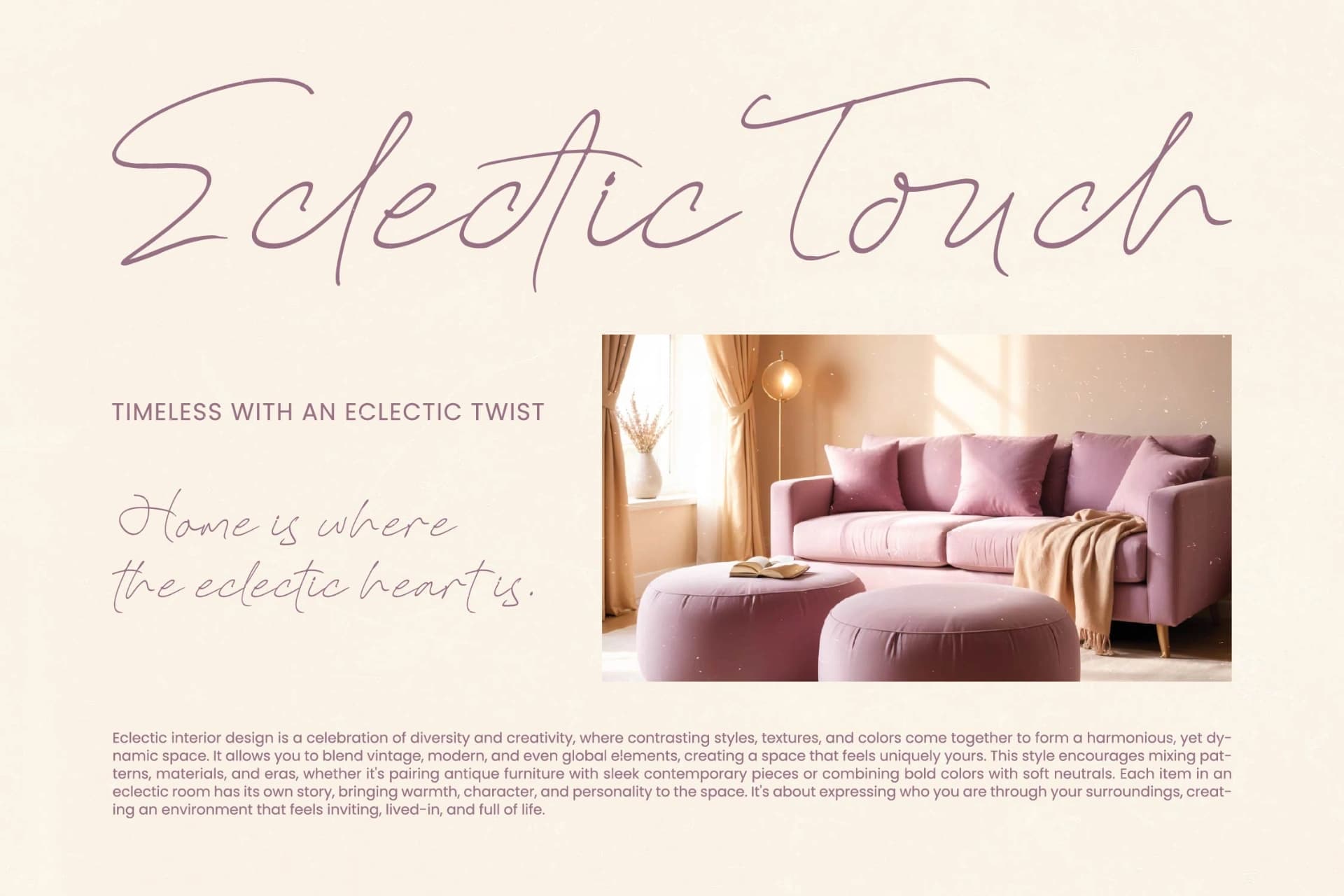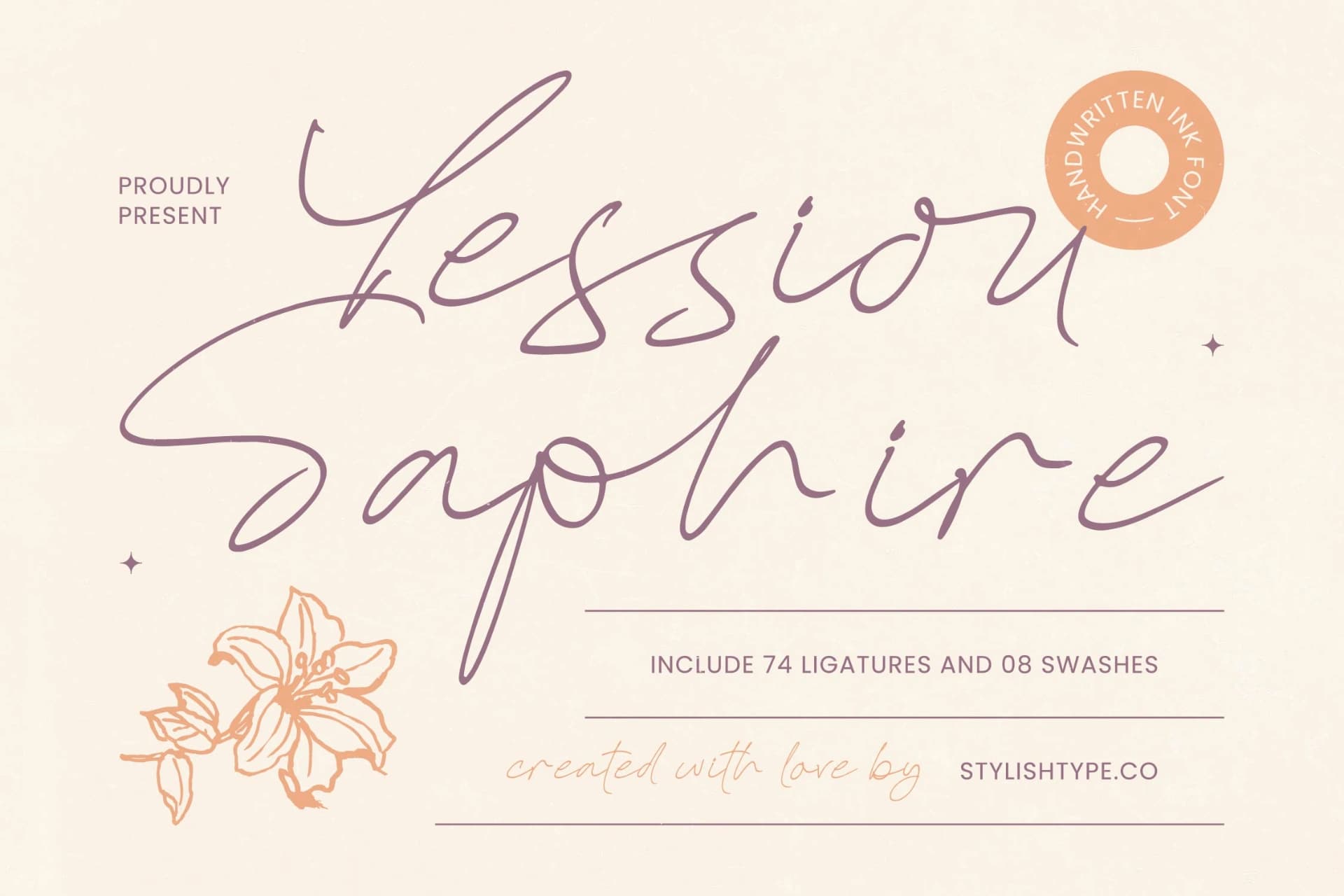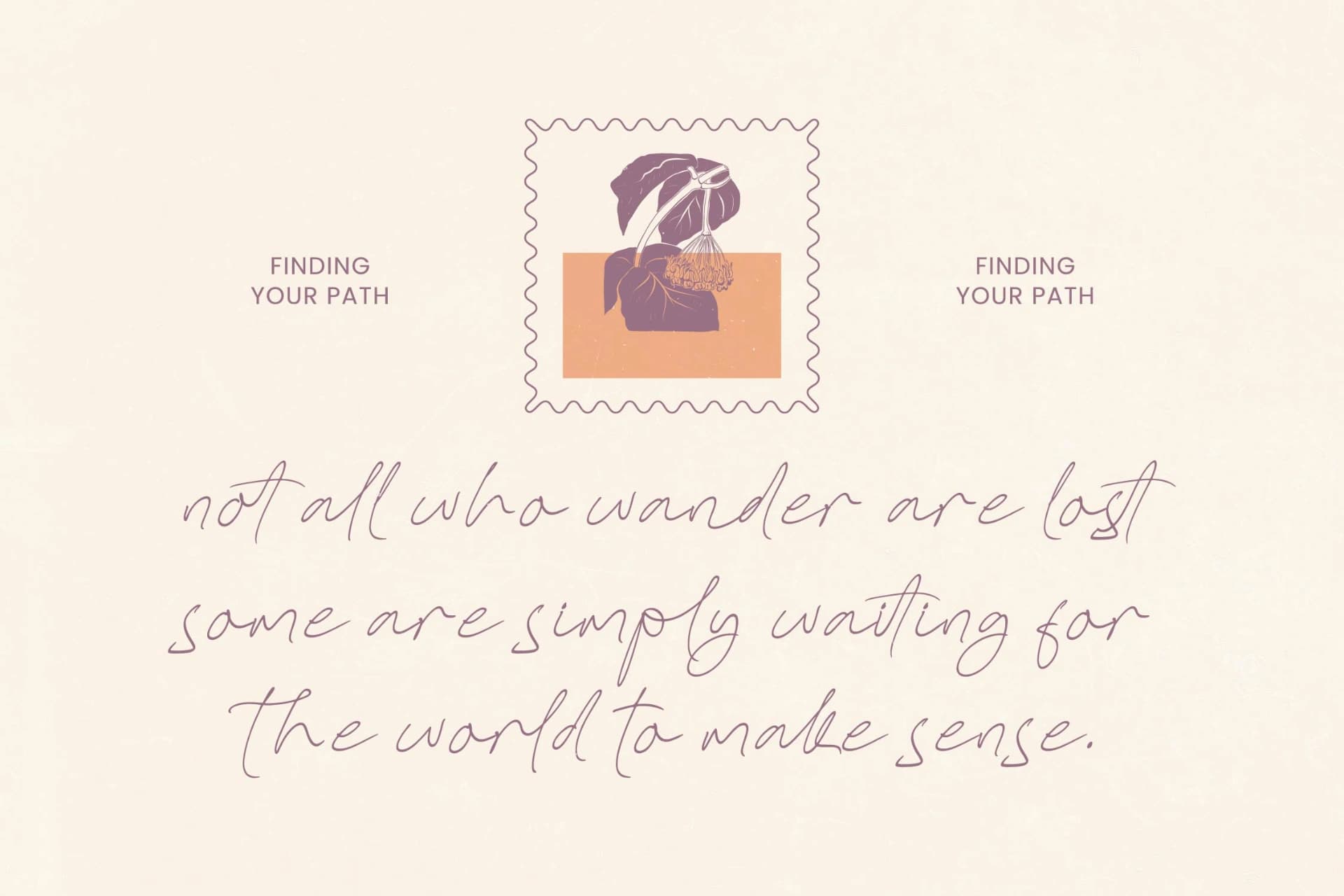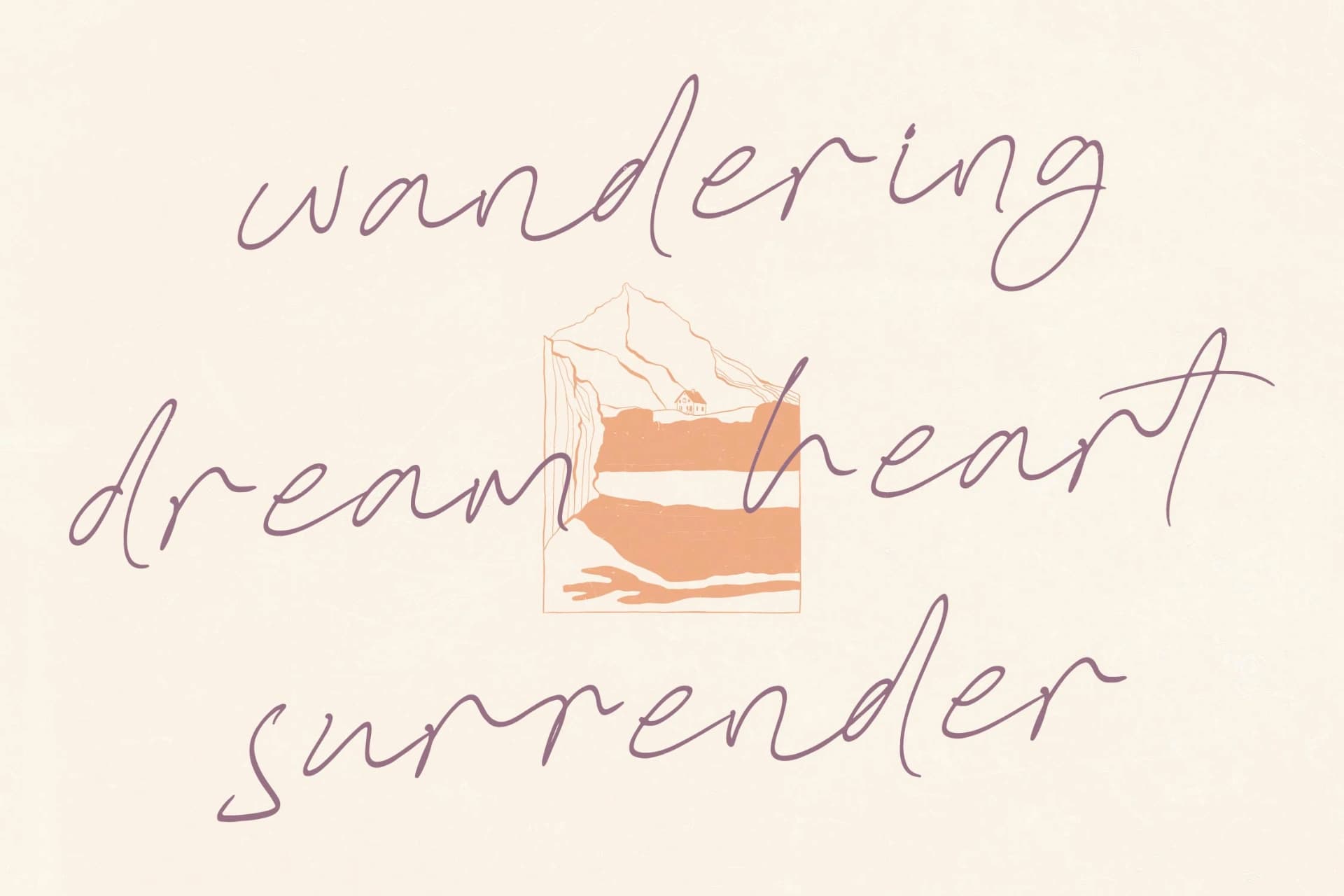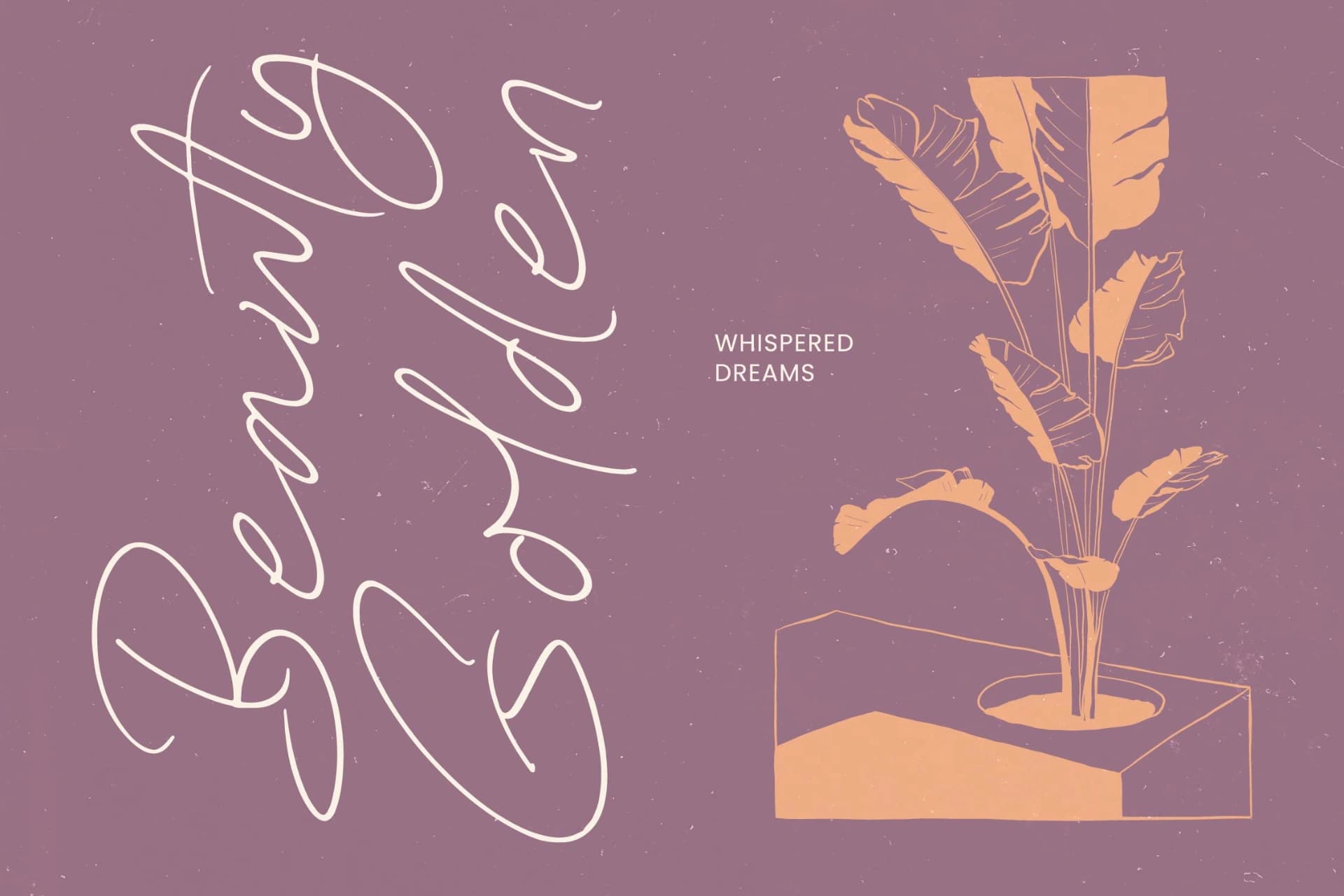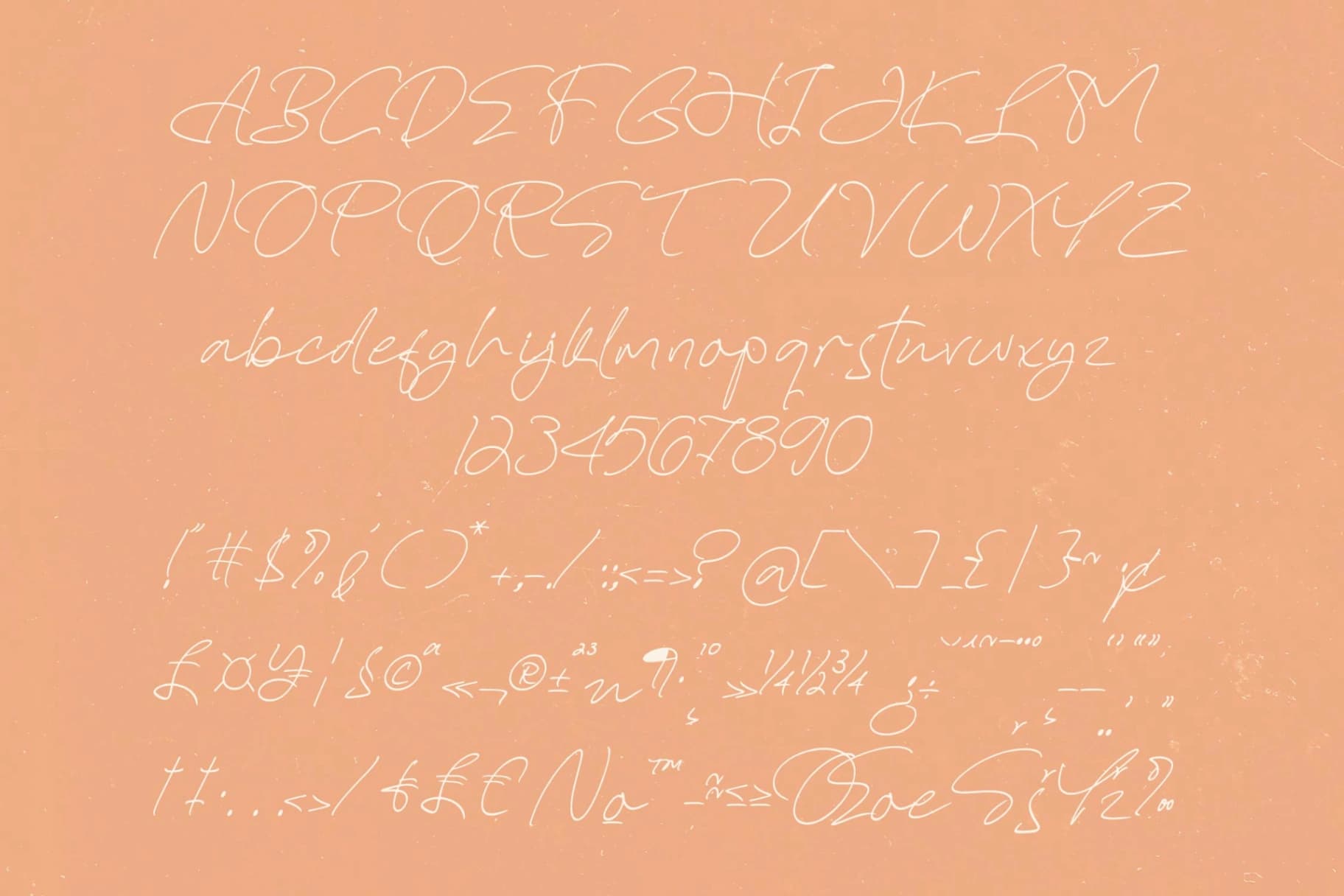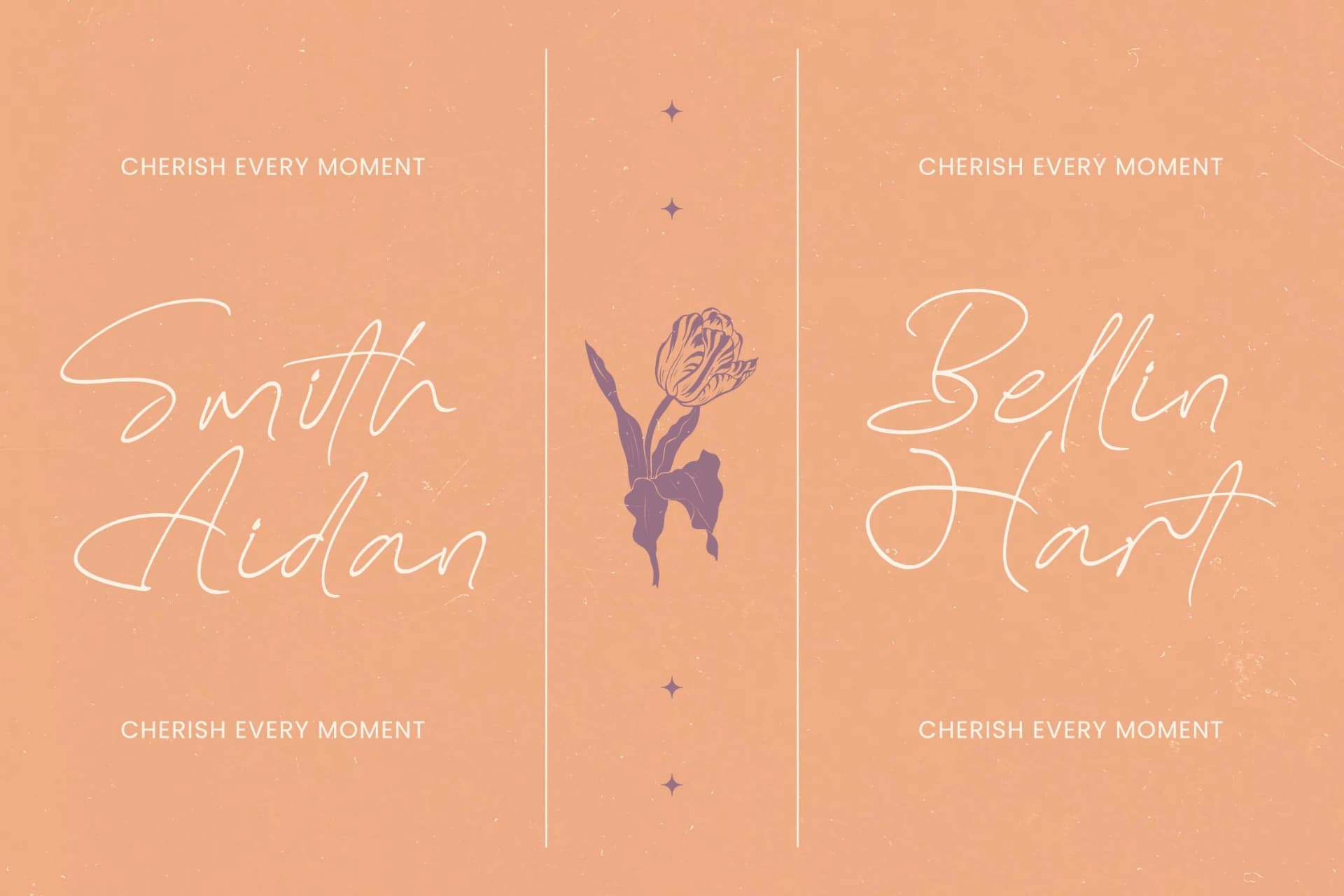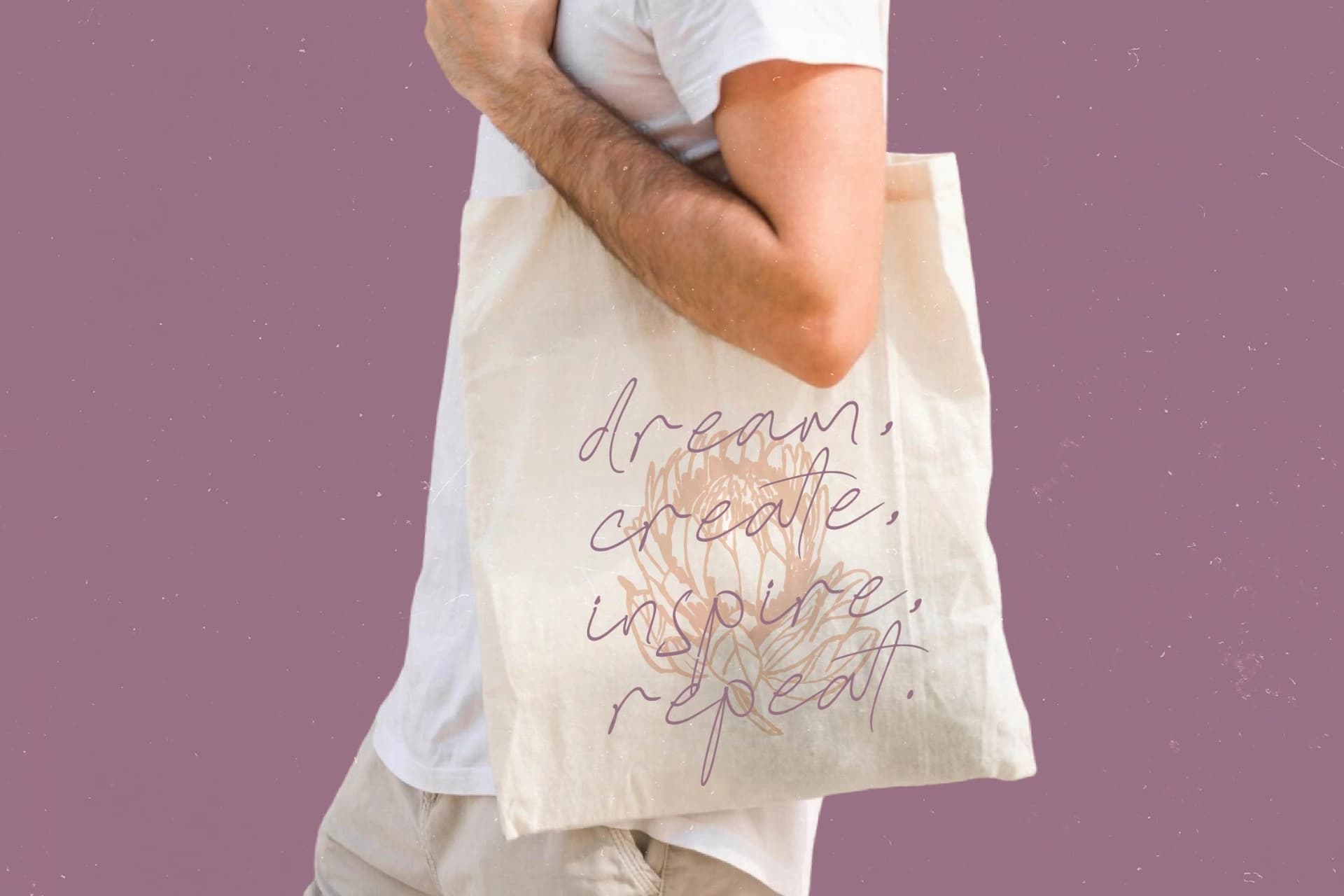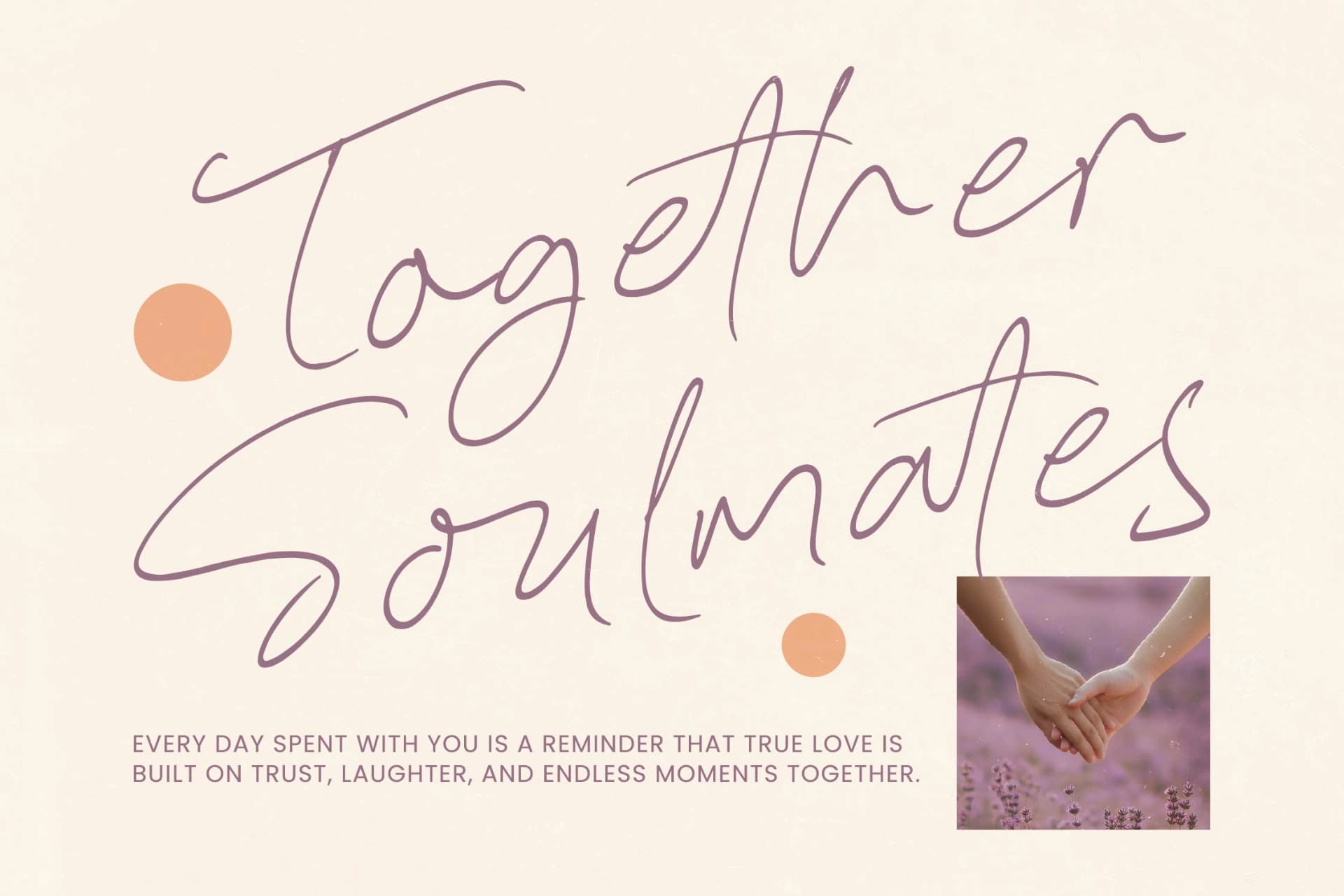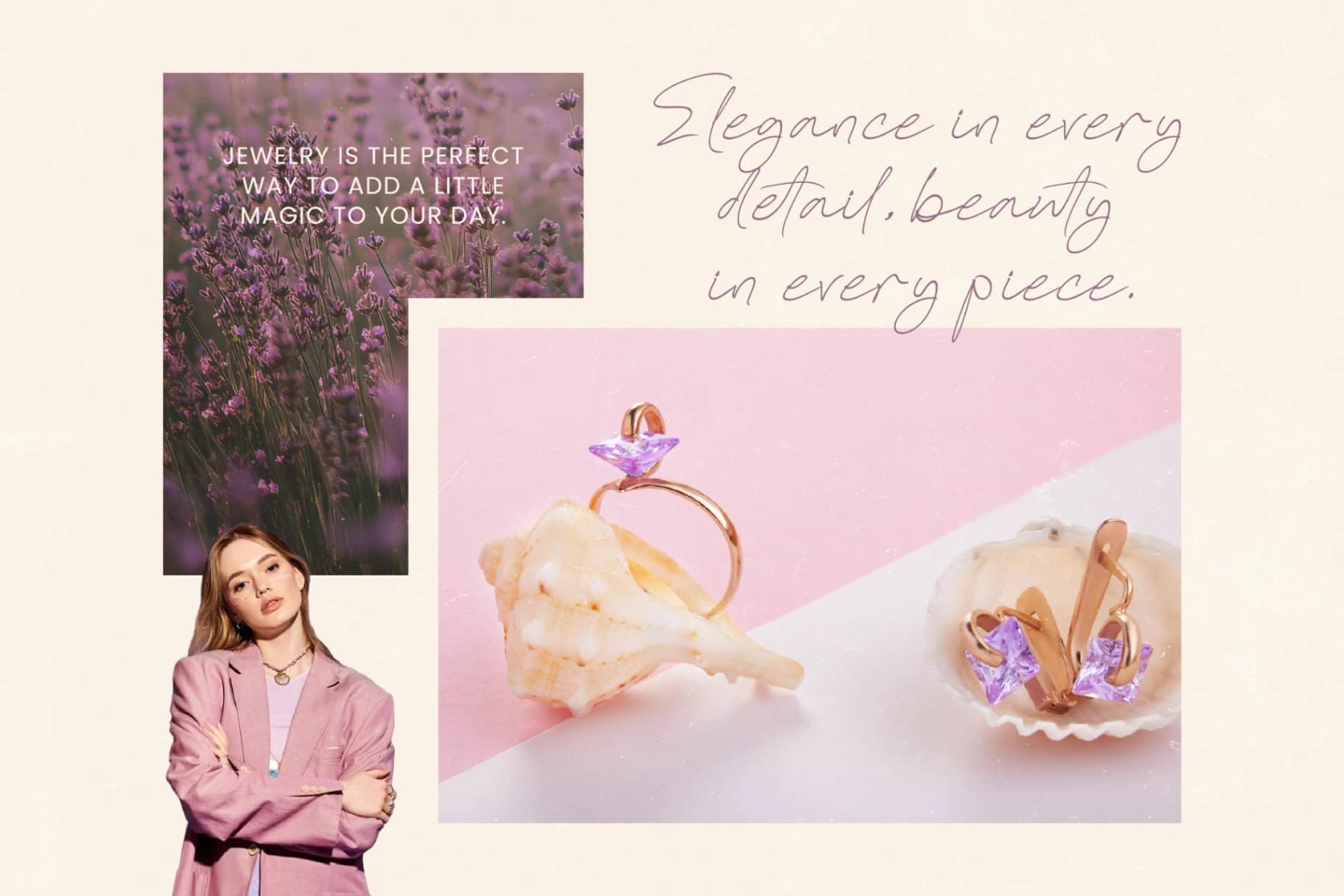
Yessiou Saphire - Handwritten Ink Font
Unleash the power of authentic elegance with Yessiou Saphire - Handwritten Ink Font. This exquisite script font beautifully captures the essence of genuine penmanship, offering a fluid and graceful aesthetic that immediately elevates any design. Its delicate, ink-inspired strokes convey a sense of personal touch and artistic flair, perfect for projects demanding both sophistication and warmth. Discover a font that truly speaks with character and distinction.
Experience unparalleled design versatility with Yessiou Saphire - Handwritten Ink Font. Crafted for intricate creative expression, it boasts an impressive collection of 74 ligatures and 08 expressive swashes. These thoughtful additions ensure a seamlessly connected, natural handwritten appearance, allowing for extensive customization and eliminating repetitive character forms. Achieve a bespoke, high-end finish that truly captivates and differentiates your work.
Expand your creative horizons with Yessiou Saphire - Handwritten Ink Font, engineered for a truly global reach. With its extensive multilingual support, Yessiou Saphire - Handwritten Ink Font adapts seamlessly across global markets, making it incredibly versatile for international projects. This crucial feature ensures your brand message resonates universally, providing consistent elegance whether you're designing for local or worldwide audiences.
Perfectly tailored for distinction, Yessiou Saphire - Handwritten Ink Font is ideal for a myriad of upscale applications. It is an indispensable asset for luxury branding, elegant wedding invitations, sophisticated packaging, and captivating editorial layouts. Its unique charm also shines in personalized stationery, stylish social media graphics, and memorable logotypes, ensuring your projects exude a truly unforgettable and premium aesthetic.